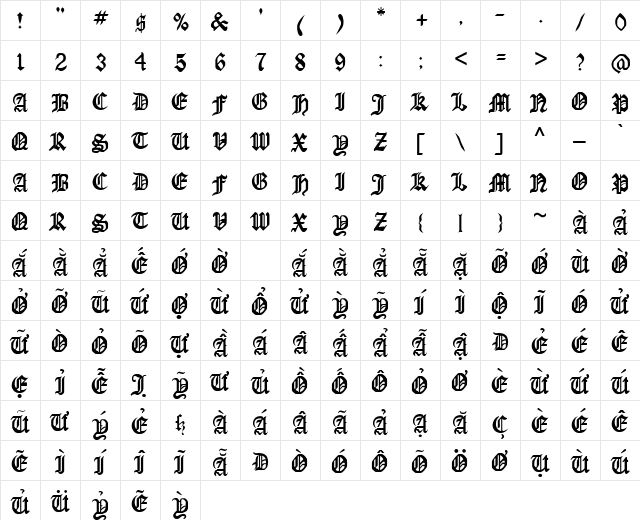
VPS Hung Yen Hoa Regular
Design Context for VPS Hung Yen Hoa Typeface
VPS Hung Yen Hoa is a composed and adaptable typeface that performs quietly and consistently across a wide range of design contexts.